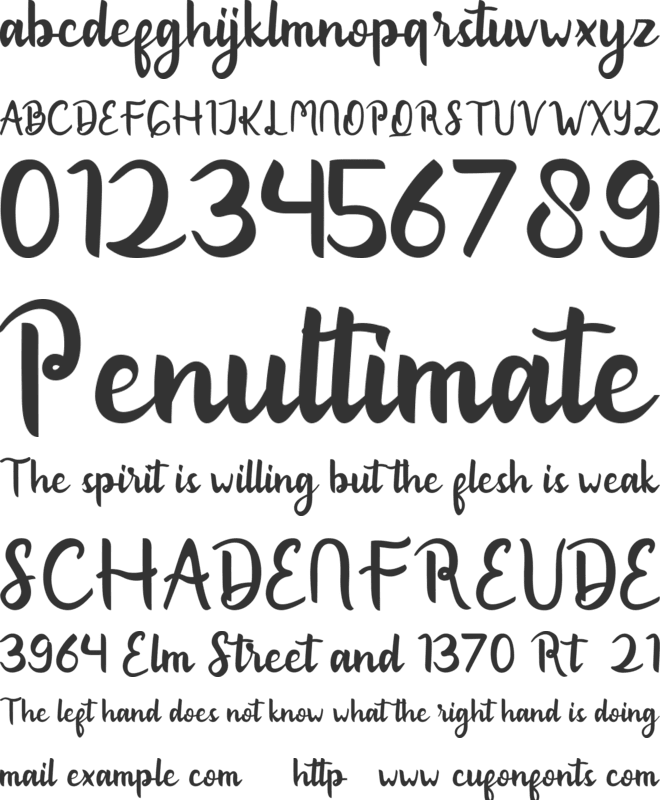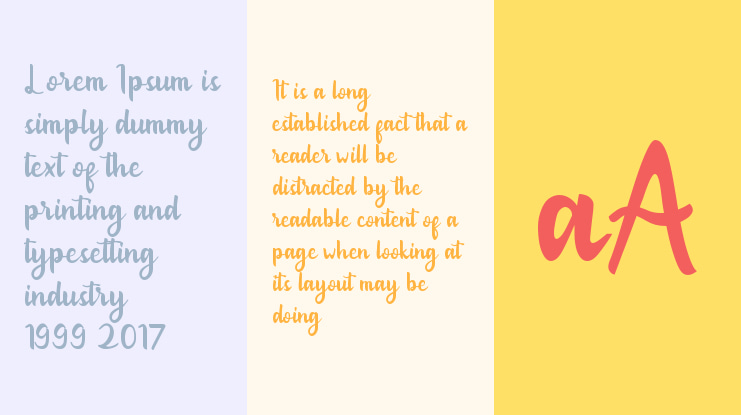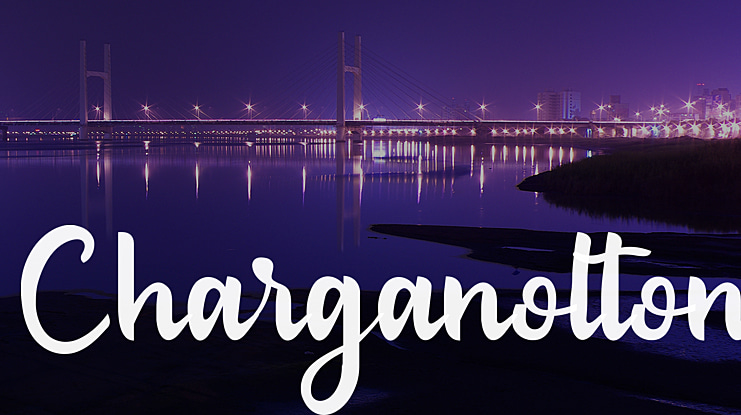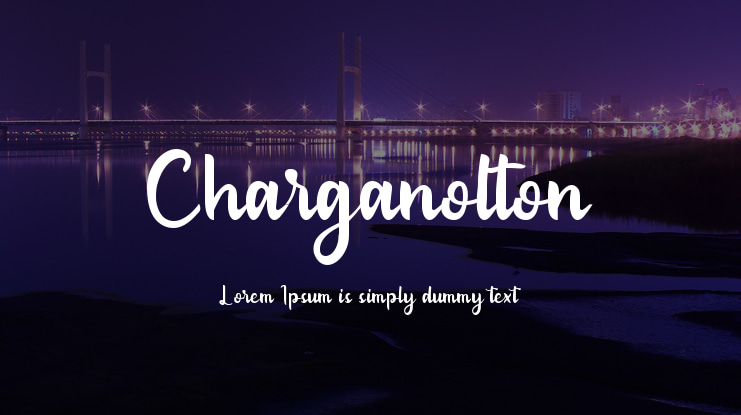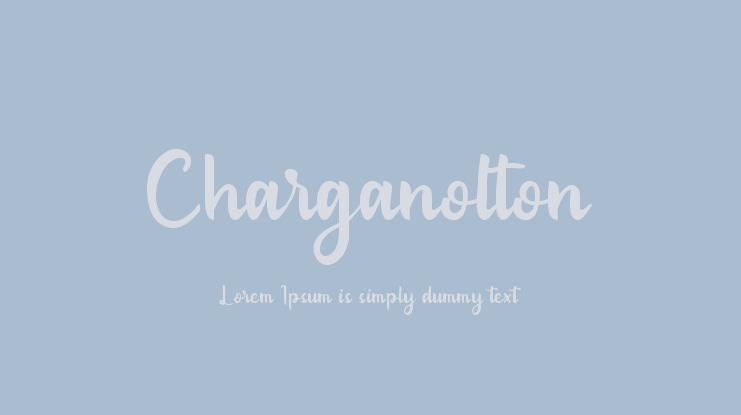
Charganolton Font
Charganolton Font the Originality is an modern handwritten script font. Very easy to access alternate . Which is perfect for flyer,invitations, advertisements, banners, books, business cards, signatures, and others who want a bold script font font type.